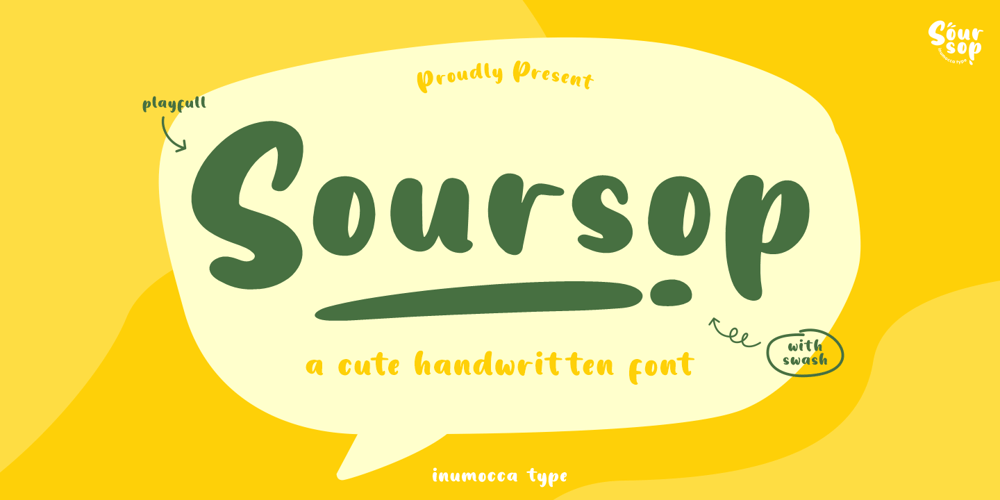
Soursop
Soursop font
Soursop Font Family was designed by Inu Mocca and published by Inumocca. Soursop contains 2 styles and family package options. Soursop a cute handwritten font, Girly, fun and joyful character but strong and dynamic.Come with Swash for Complete your Typography. Exellent typeface to use for covering your Project, like Branding, Movie Title, Headline Letter, Bookcover or Book Content, Magazine cover, Poster, Quotes Lettering, Logos, and more your project design.- Unique glyphs- Multilingual Characters Support- UPPERCASE- Lowercase- Numeric- Symbol- Punctuation Character- PUA encoded- Soursop Reguler – Soursop Swash inumocca type